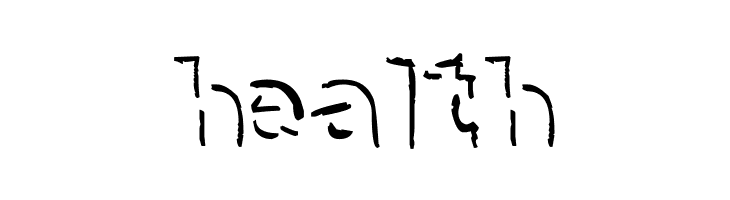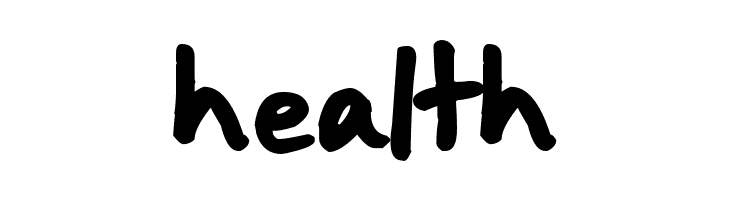
A futuristic, bold, and italicized font with a condensed design, ideal for tech and modern projects.
A bold, futuristic font with geometric shapes and sharp angles.
A bold, geometric font with characters enclosed in circles, ideal for monograms.
A modern, italicized font with rounded, smooth characters and consistent stroke width.
A bold, italic, and modern font with rounded edges and a slightly condensed style.
A modern, rounded font with a sleek, condensed design.
A bold, rounded sans-serif font with uniform strokes and a modern look.
A modern, rounded font with a clean and approachable design.
A playful, hand-drawn font with tall, narrow characters and a casual vibe.
A bold, playful font with exaggerated curves and whimsical flair.
A playful handwritten font with uneven strokes and a casual vibe.
A lively, handwritten script with dynamic, fluid strokes.
A bold, playful handwritten font with thick strokes and a whimsical style.
A playful, handwritten font with a dynamic and casual style.